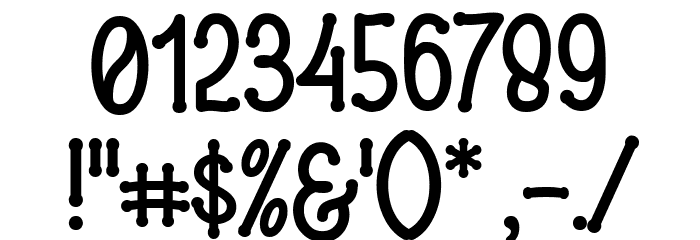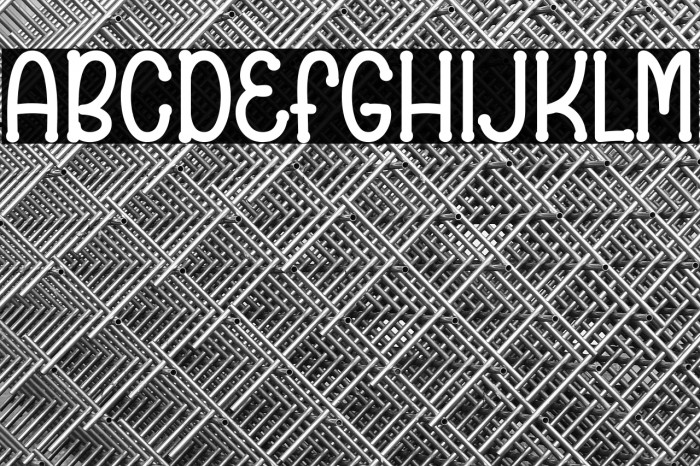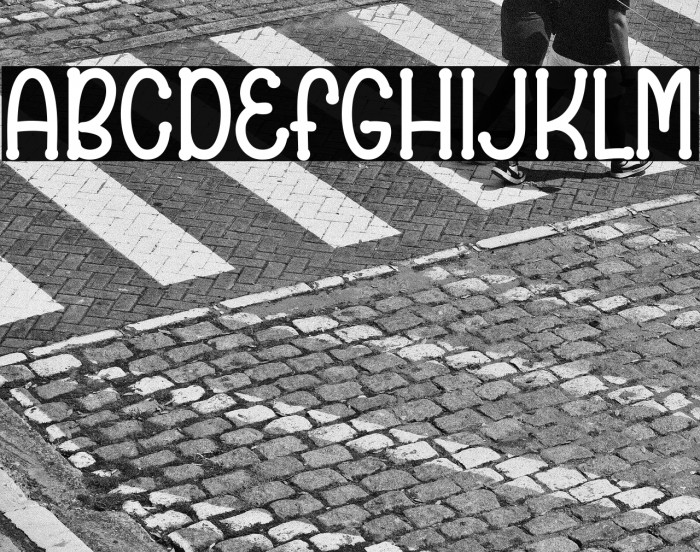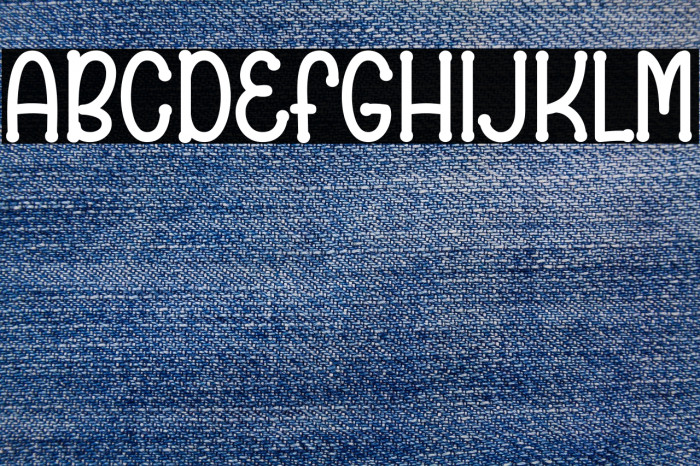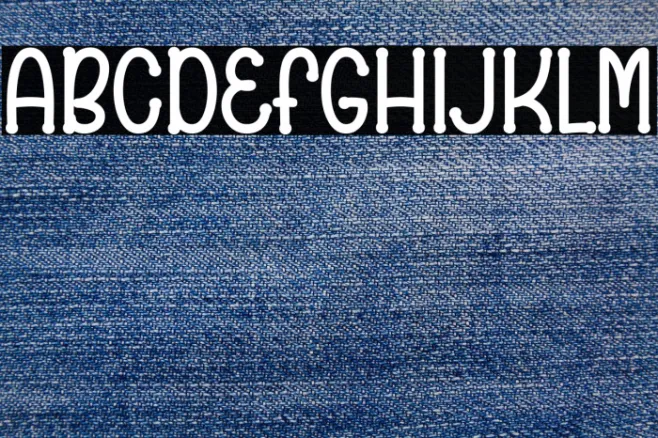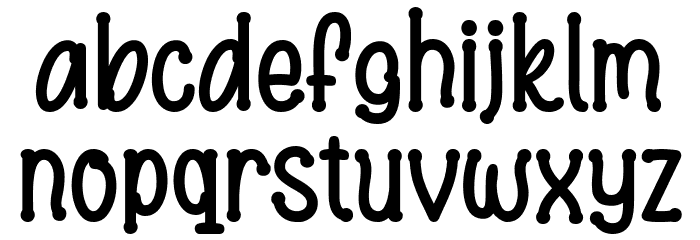
Bronice Font
Bronice Description
This font features a playful and rounded style with a handwritten feel. The characters are bold and have a consistent stroke width, giving them a friendly and approachable appearance. The uppercase letters are slightly taller than the lowercase, maintaining a uniform width throughout. The numbers and special characters are designed to match the overall style, with rounded edges and a consistent weight. This font is ideal for projects that require a casual and informal touch, such as children's books, playful branding, or creative invitations.
| Proposed Projects | Children's books, playful branding, creative invitations, casual posters. |